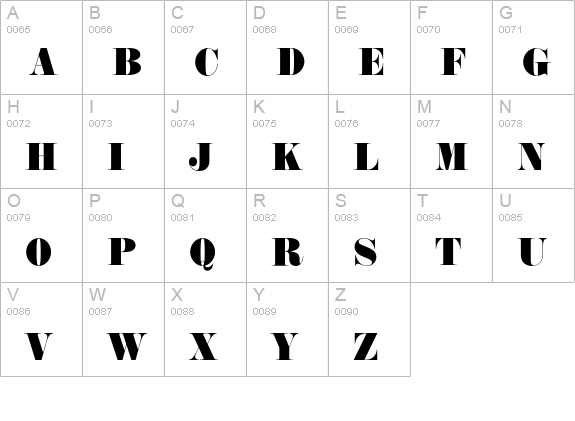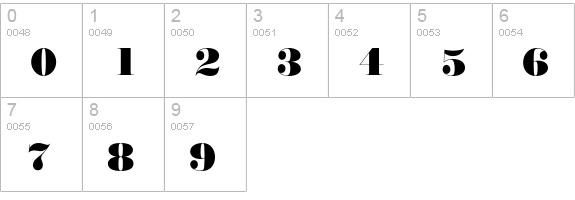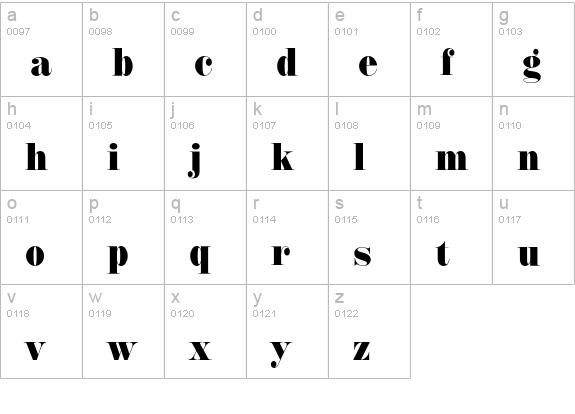
AnnlieEF-ExtraBold Font Details
AnnlieEF-ExtraBold is an extra-heavy, attention-grabbing variant in the AnnlieEF typeface family \xE2\x80\x94 well suited to high-impact headlines, posters, and bold branding.
AnnlieEF-ExtraBold is a striking and impactful typeface that exudes strength and confidence. Its bold and commanding letterforms make a bold statement in any design project. Perfect for headlines, posters, and branding materials, AnnlieEF-ExtraBold demands attention and leaves a lasting impression. What sets AnnlieEF-ExtraBold apart is its versatility and readability, making it suitable for a wide range of applications. Whether you're designing a sleek modern website or creating eye-catching marketing materials, this font will deliver a powerful visual impact. The best part? AnnlieEF-ExtraBold is available for free download at FontsMarket.com. Simply visit the website to access this stunning typeface and take your designs to the next level with its bold presence. Don't miss out on the opportunity to add AnnlieEF-ExtraBold to your font collection and elevate your projects with its impressive style.